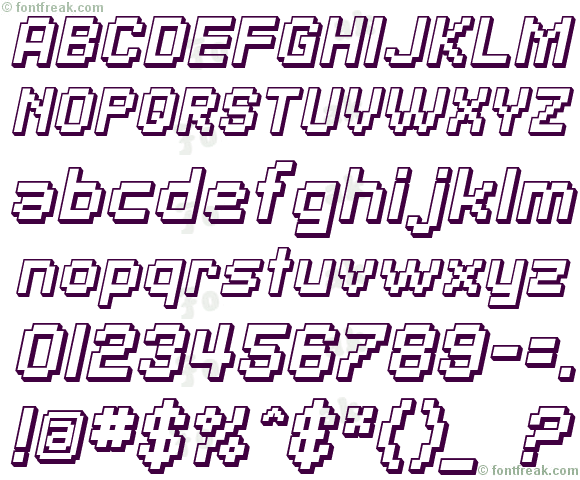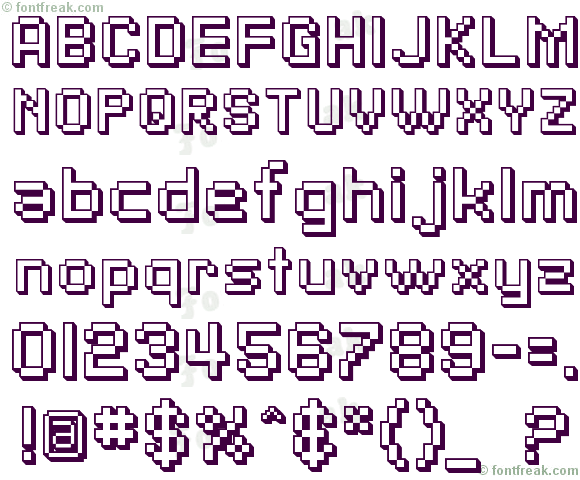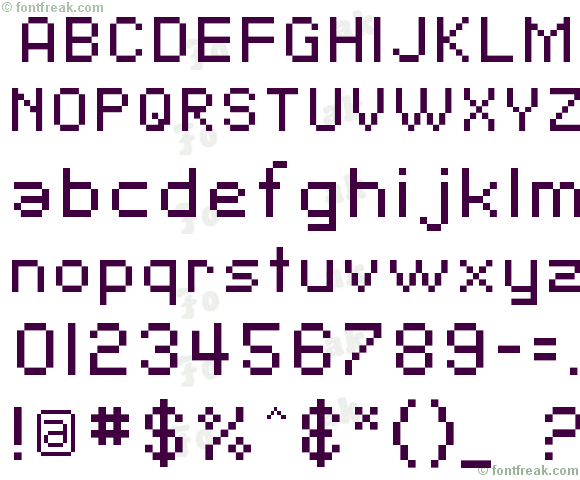
About Pixelate
The Pixelate font by Shyfonts Type Foundry is a striking display typeface that embodies a unique blend of retro aesthetics and modern functionality. As a pixelated font, it belongs to the decorative category, characterized by its bold, oblique letterforms that evoke a sense of nostalgia reminiscent of early digital graphics. The stroke weight is consistent, offering a sturdy appearance, while the sharp edges and geometric shapes give it a distinctive, blocky look. The spacing is tight, allowing for compact arrangements that maintain readability without sacrificing style.
This font is ideal for various creative applications, including video game graphics, retro-themed marketing materials, and vibrant event flyers. Its playful nature makes it an excellent choice for children's book covers, where the fun and whimsical character of the typeface can engage young audiences. Additionally, it can enhance the visual appeal of social media graphics, making it a go-to option for content creators looking to make a bold statement. Small business owners in the tech or gaming industry will find the Pixelate font particularly useful for branding purposes, as it conveys a modern yet nostalgic vibe that resonates with their target demographic.